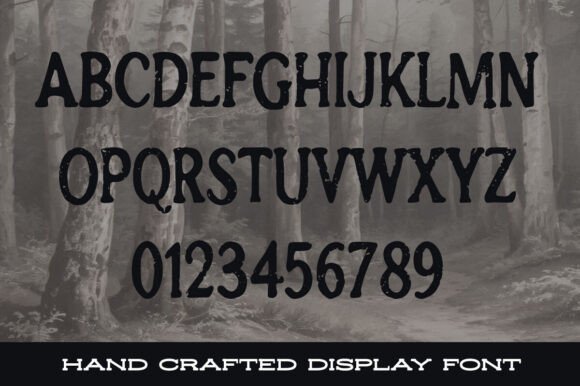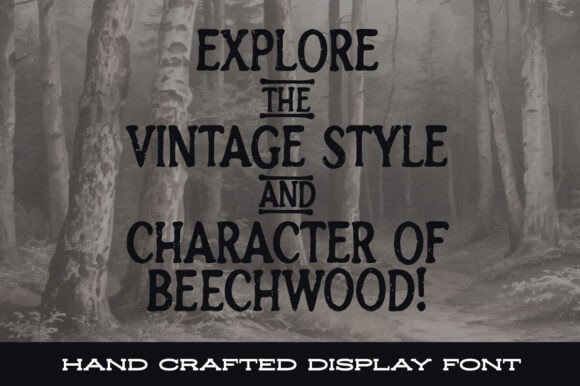
Beechwood Font: A Timeless Vintage Serif for Your Design Needs
In the realm of typography, few fonts manage to capture the essence of classic elegance and rustic charm as effectively as Beechwood. This vintage-style hand-drawn serif font is a masterful blend of traditional craftsmanship and modern design sensibilities, making it an ideal choice for designers and crafters looking to infuse their projects with a touch of nostalgia and sophistication.
The Inspiration Behind Beechwood
Beechwood’s design is deeply rooted in the rich history of typography and the art of old-world craftsmanship. Each letterform has been carefully crafted to reflect the subtle imperfections and organic feel that are characteristic of hand-drawn typography. This attention to detail results in a font that exudes warmth, character, and a sense of history, perfect for projects that seek to evoke a bygone era.
Key Features of Beechwood Font
- Hand-Drawn Quality: Beechwood’s hand-drawn nature gives it a unique, personalized feel that is hard to replicate with digital fonts. Each letter, number, and symbol has been meticulously drawn to ensure a natural, organic appearance.
- Serif Elegance: The serifs in Beechwood are both graceful and sturdy, providing the font with a grounded, traditional look. This balance of elegance and robustness makes Beechwood versatile for various design applications.
- Subtle Imperfections: The font’s subtle imperfections are a nod to the artisanal process of traditional typography. These imperfections add depth and character to the text, making it more engaging and visually appealing.
- Vintage yet Modern: While Beechwood is deeply rooted in vintage typography, it has been designed with a modern twist. This makes it suitable for designers who want to create vintage-inspired designs that still feel contemporary and relevant.
Use Cases for Beechwood Font
Beechwood’s versatility and timeless charm make it suitable for a wide range of design projects. Here are some of the ideal use cases for this beautiful font:
- Branding: Use Beechwood to create a memorable brand identity that stands out with its classic elegance and charm. The font’s unique character can help your brand convey a sense of tradition, quality, and craftsmanship.
- Packaging: Add a touch of vintage sophistication to your product packaging with Beechwood. The font’s hand-drawn quality and serifs can make your packaging design look more artisanal and premium.
- Posters and Flyers: Beechwood is perfect for creating eye-catching posters and flyers that require a bit of nostalgia and character. Its readability and aesthetic appeal make it an excellent choice for headlines and body text.
- Web Design: Incorporate Beechwood into your web design to give your website a unique, personalized feel. The font’s vintage vibe can help create a warm and inviting online space.
Why Choose Beechwood Font?
In a digital world where fonts are plentiful and often lack character, Beechwood stands out as a refreshing alternative. Here are a few reasons why designers and crafters are choosing Beechwood for their projects:
- Unique Character: Beechwood offers a level of uniqueness that is hard to find in more common fonts. Its hand-drawn letterforms ensure that your designs will have a distinctive look.
- Versatility: Despite its vintage inspiration, Beechwood is incredibly versatile. It can be used in a variety of contexts, from luxury branding to DIY craft projects.
- Easy to Read: The serifs in Beechwood not only add to its aesthetic appeal but also improve readability, making it suitable for both headings and body text.
- Support for Multiple Languages: Beechwood supports multiple languages, making it a great choice for international brands and projects.
| Author | stompstock |
Beechwood font is a beautiful, vintage-style serif that brings a touch of timeless elegance and rustic charm to any design project. Its hand-drawn quality, subtle imperfections, and graceful serifs make it an excellent choice for designers and crafters looking to add a bit of nostalgia and sophistication to their work. Whether you’re creating a brand identity, designing packaging, or crafting a poster, Beechwood is sure to bring warmth and character to every word.
Discover the unique charm of Beechwood and elevate your designs with a font that truly stands out from the crowd.